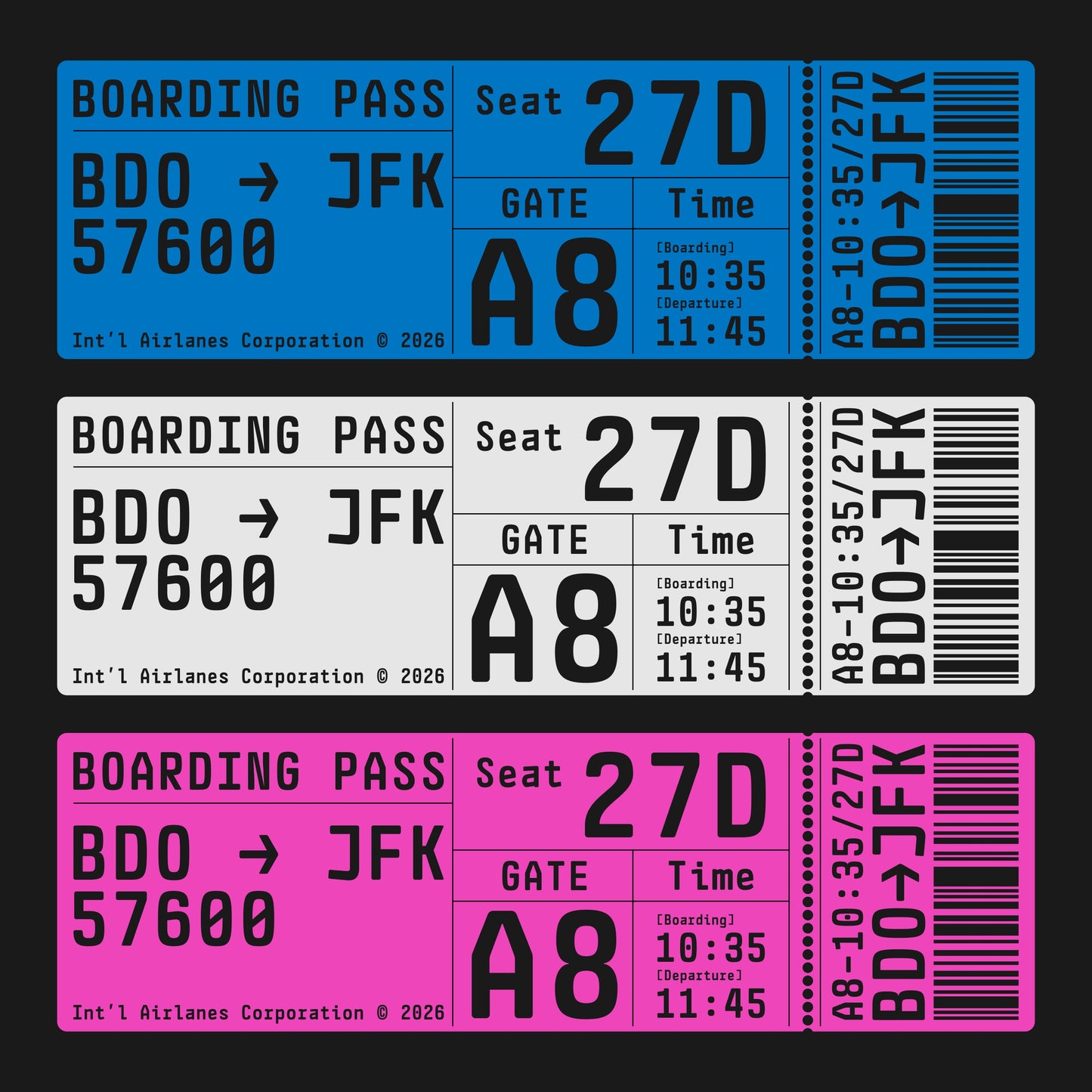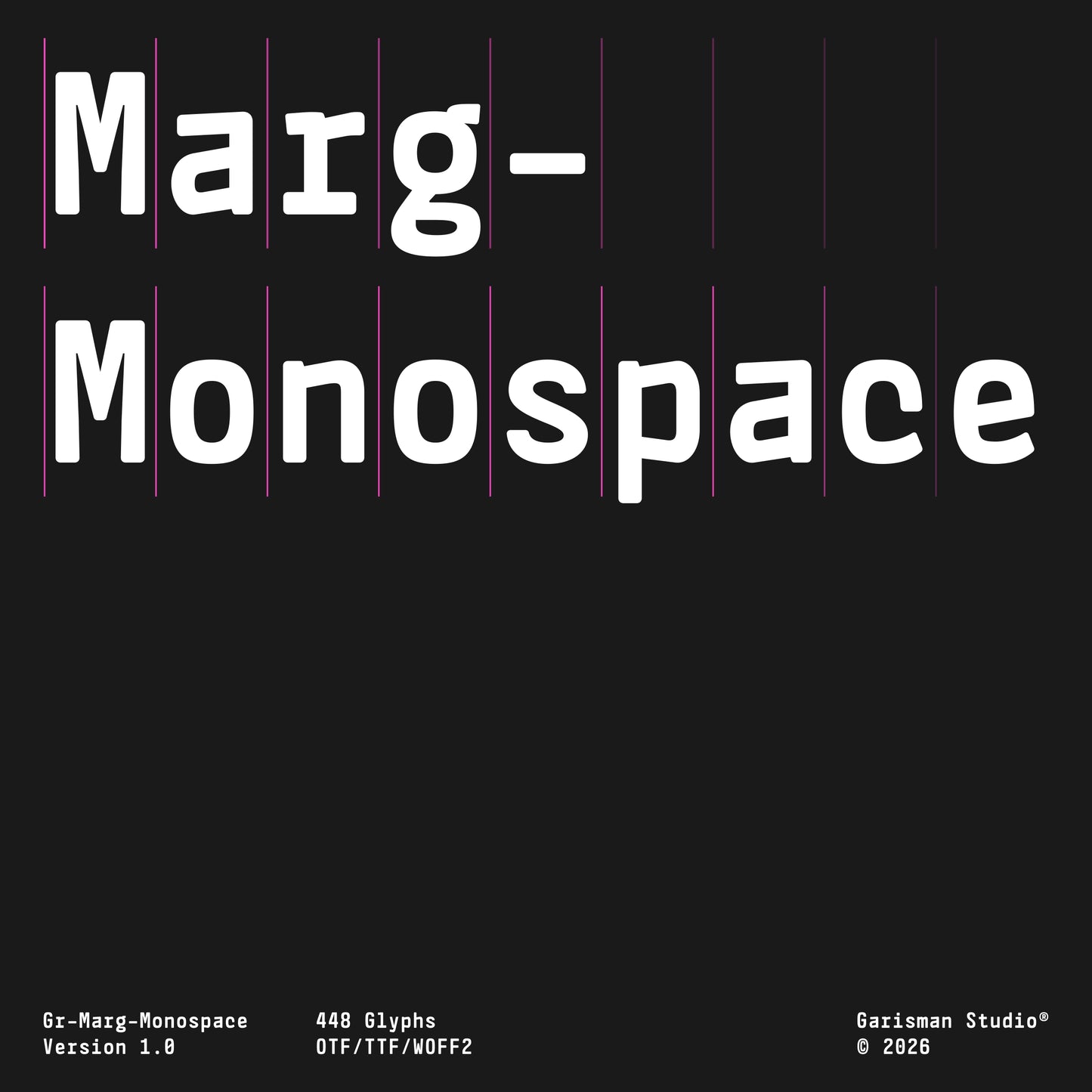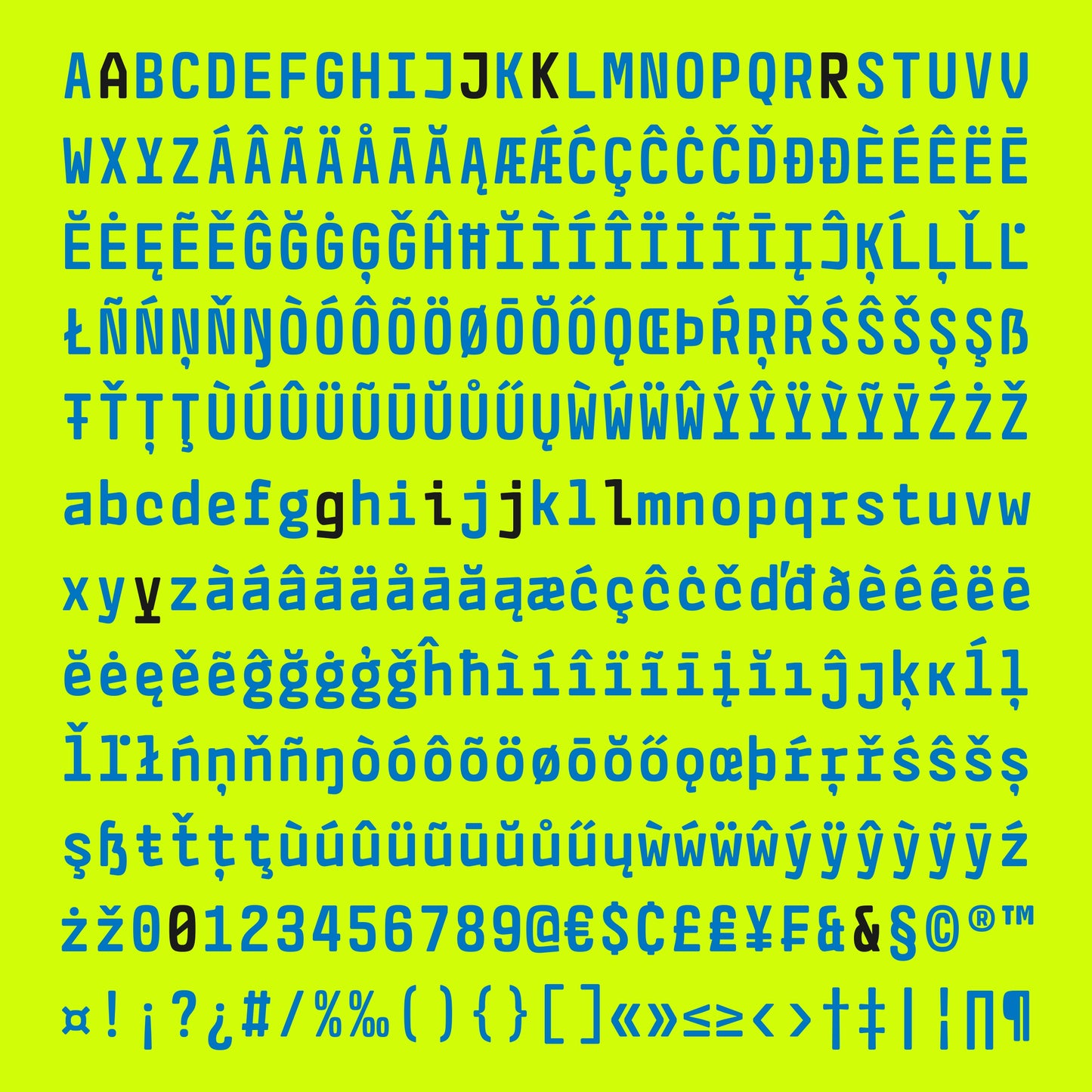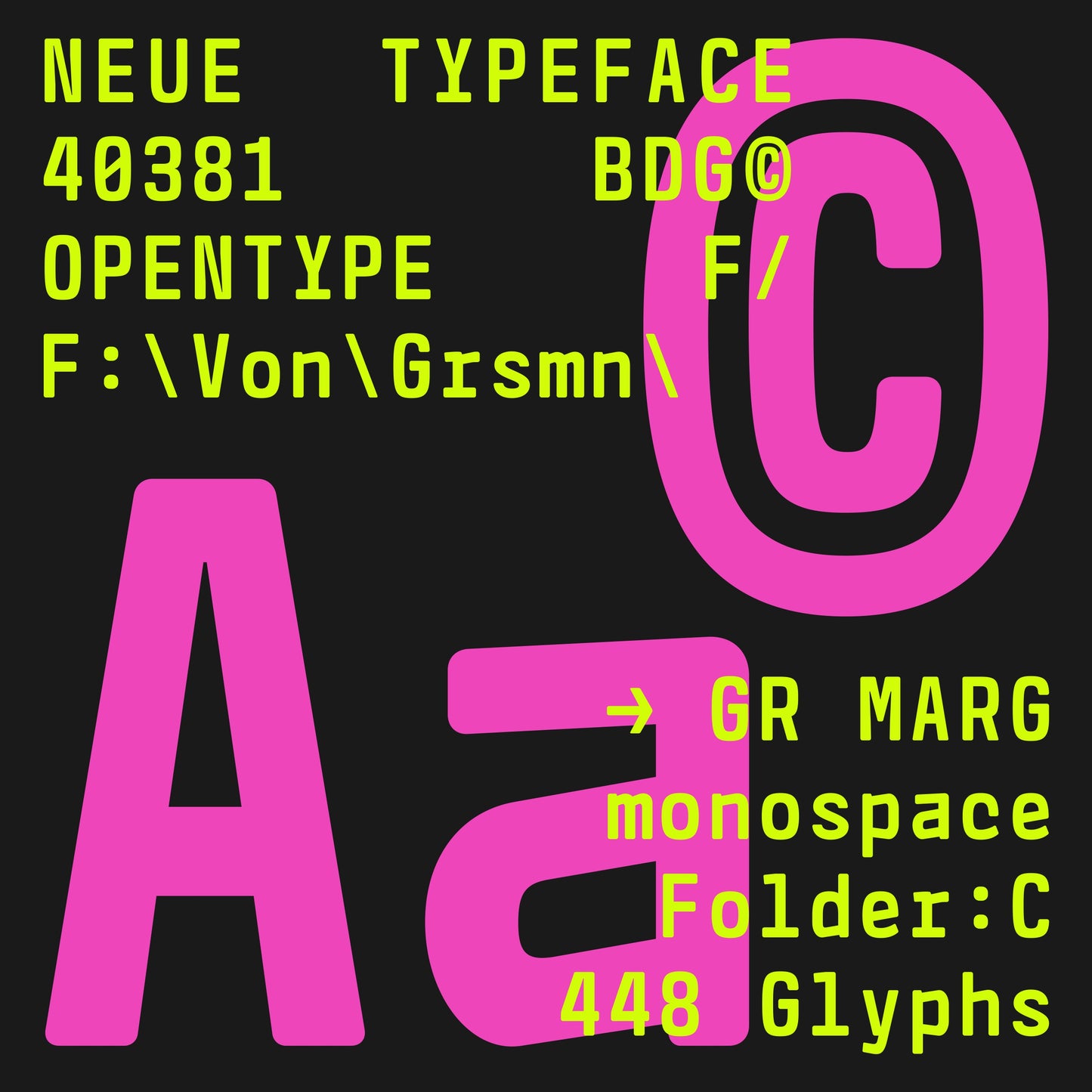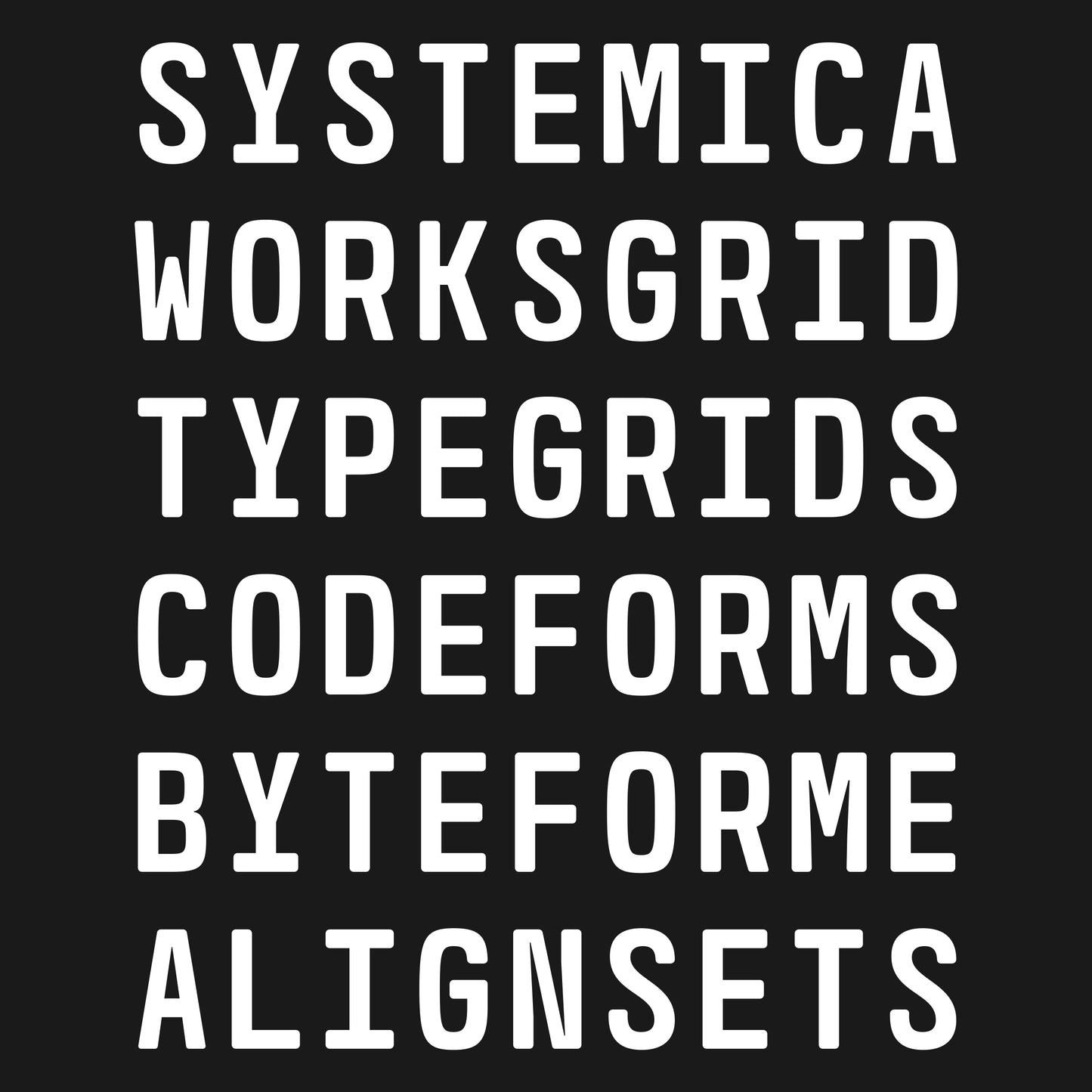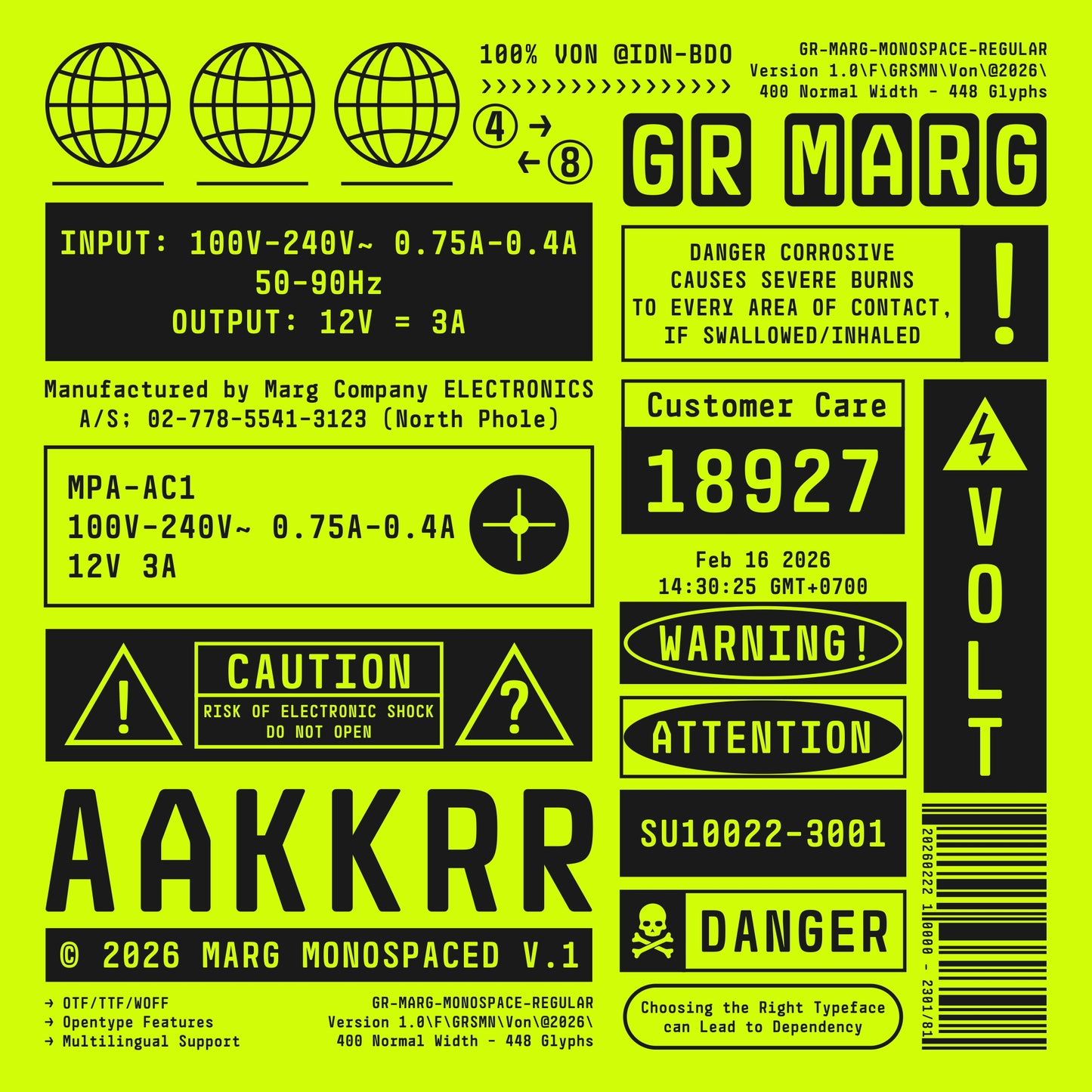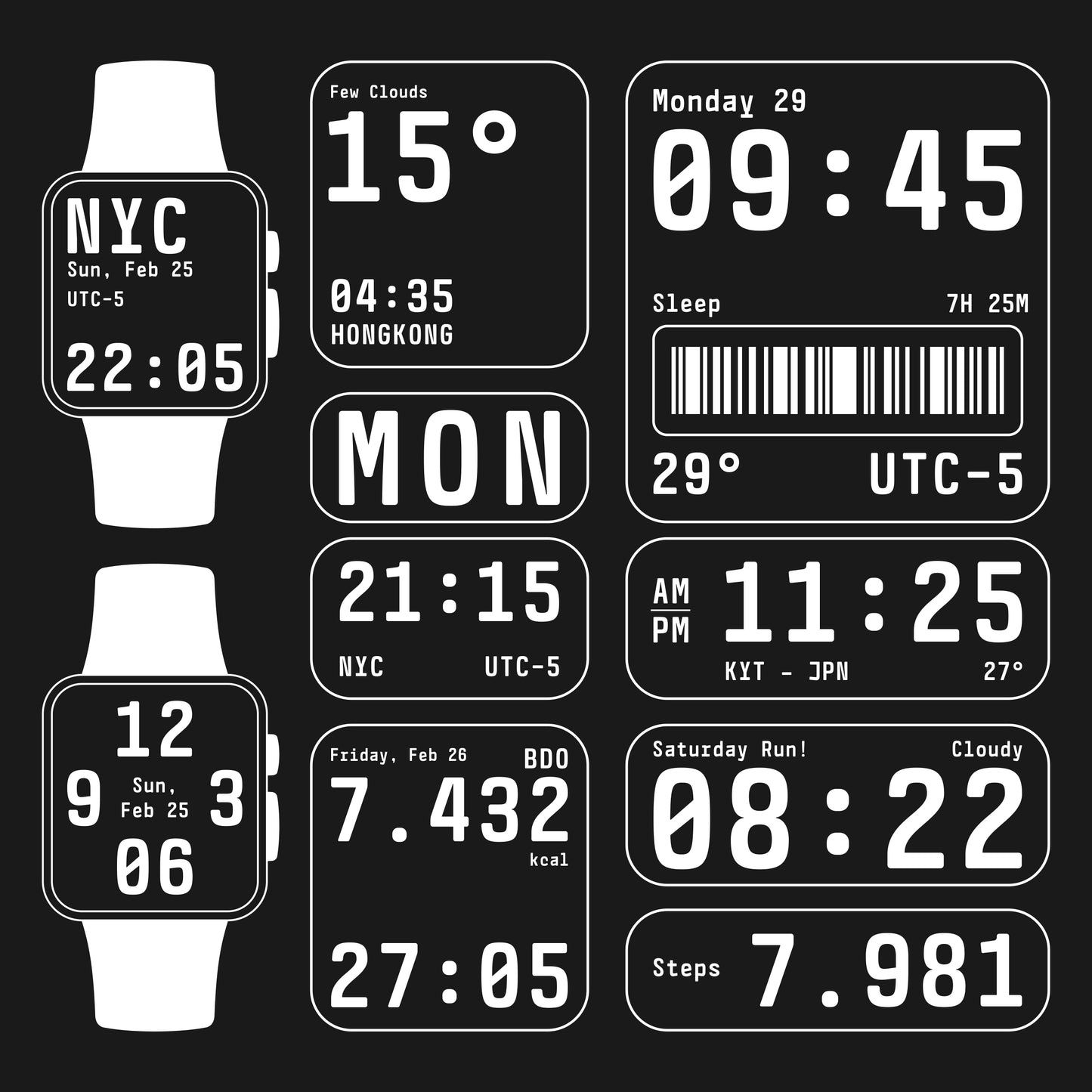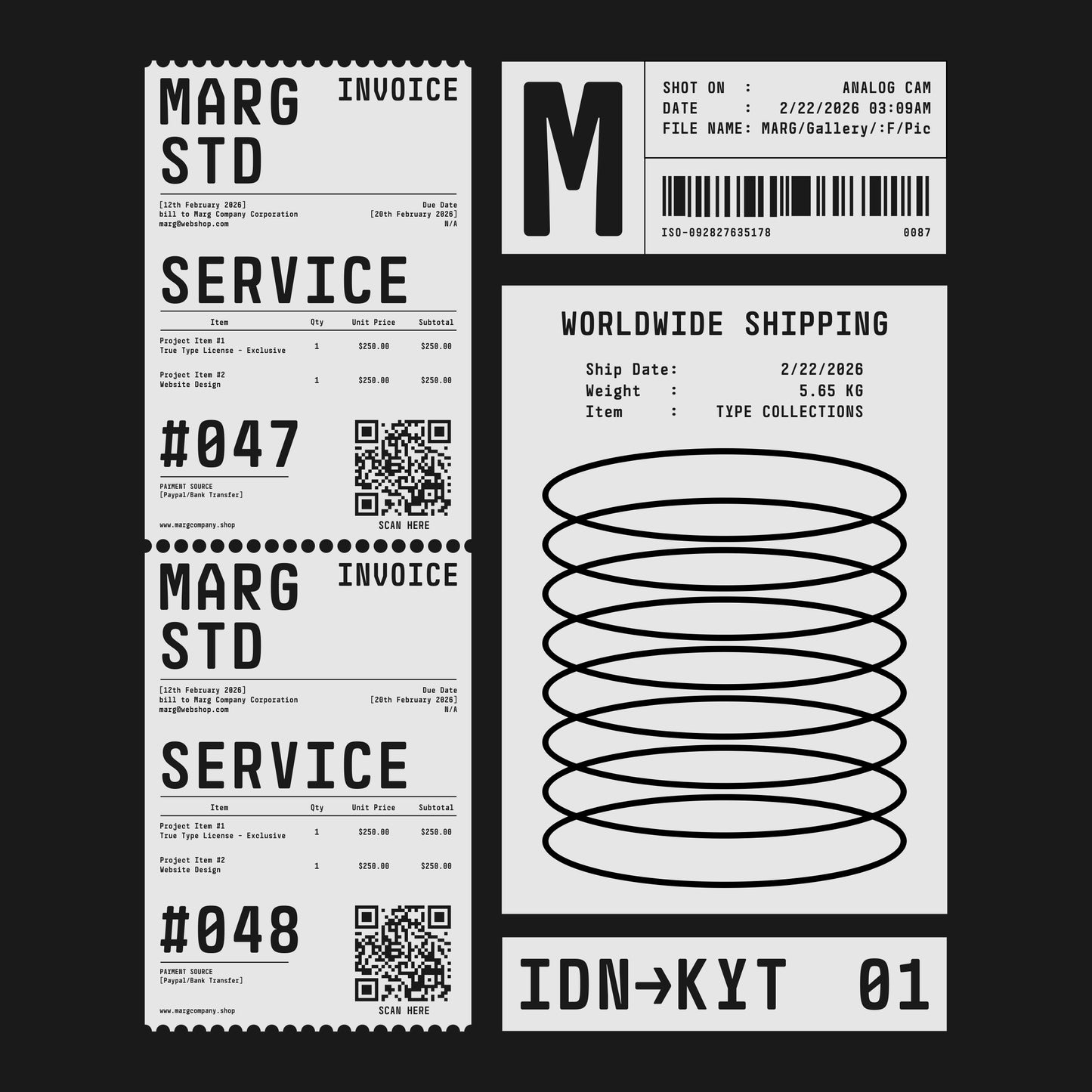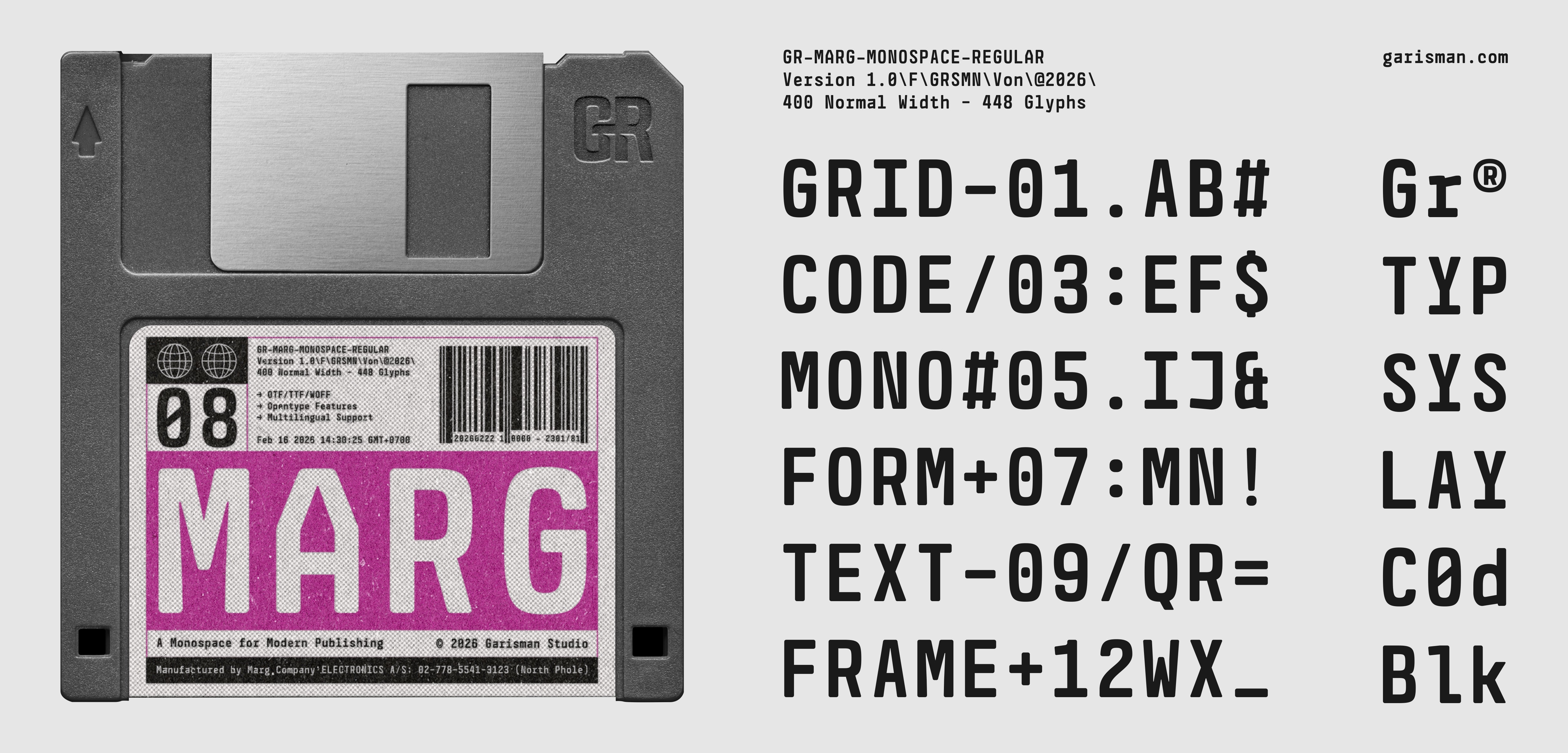
GR Marg Monospace
Garisman Studio
GR Marg Monospace is a contemporary monospace display typeface developed for digital systems, technical environments, and structured layouts. Built on a fixed-width architecture, it keeps alignment consistent across letters, numbers, and symbols—ideal for code, data visualisation, and interface design.